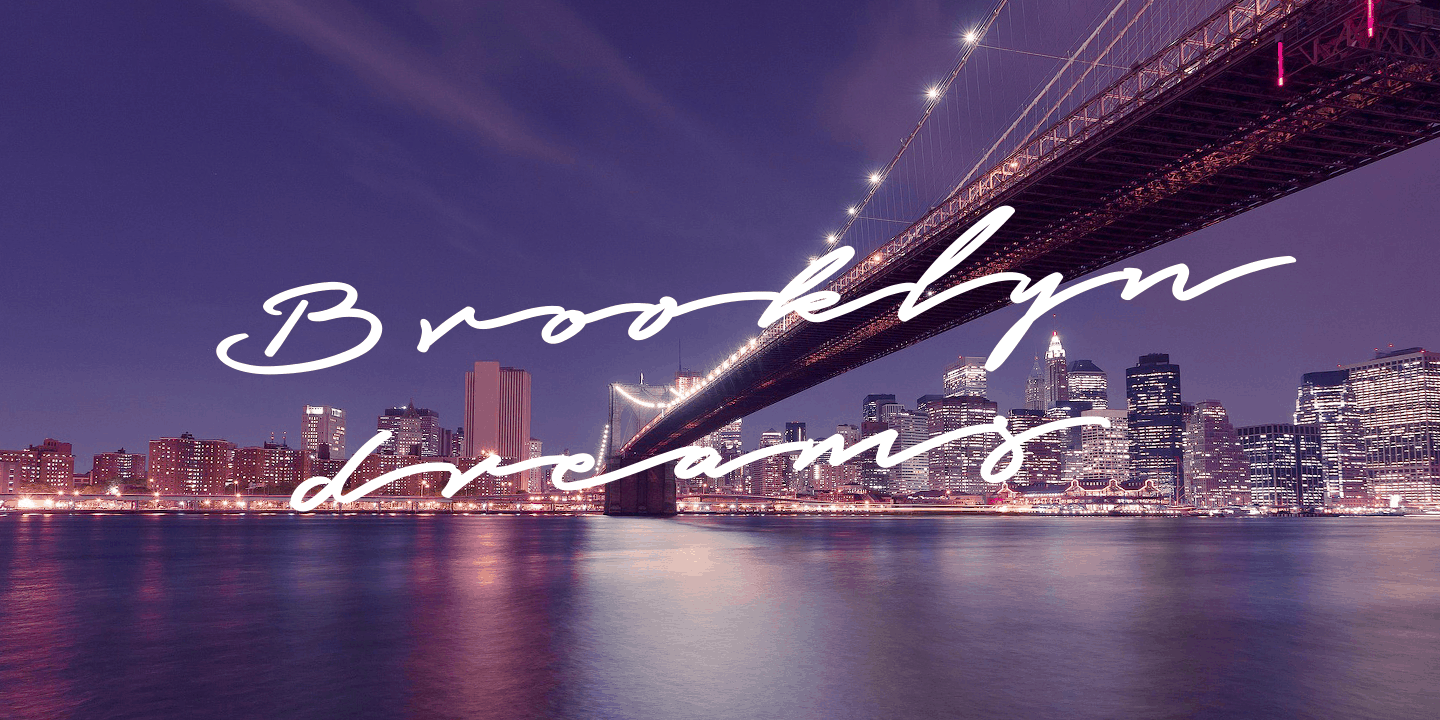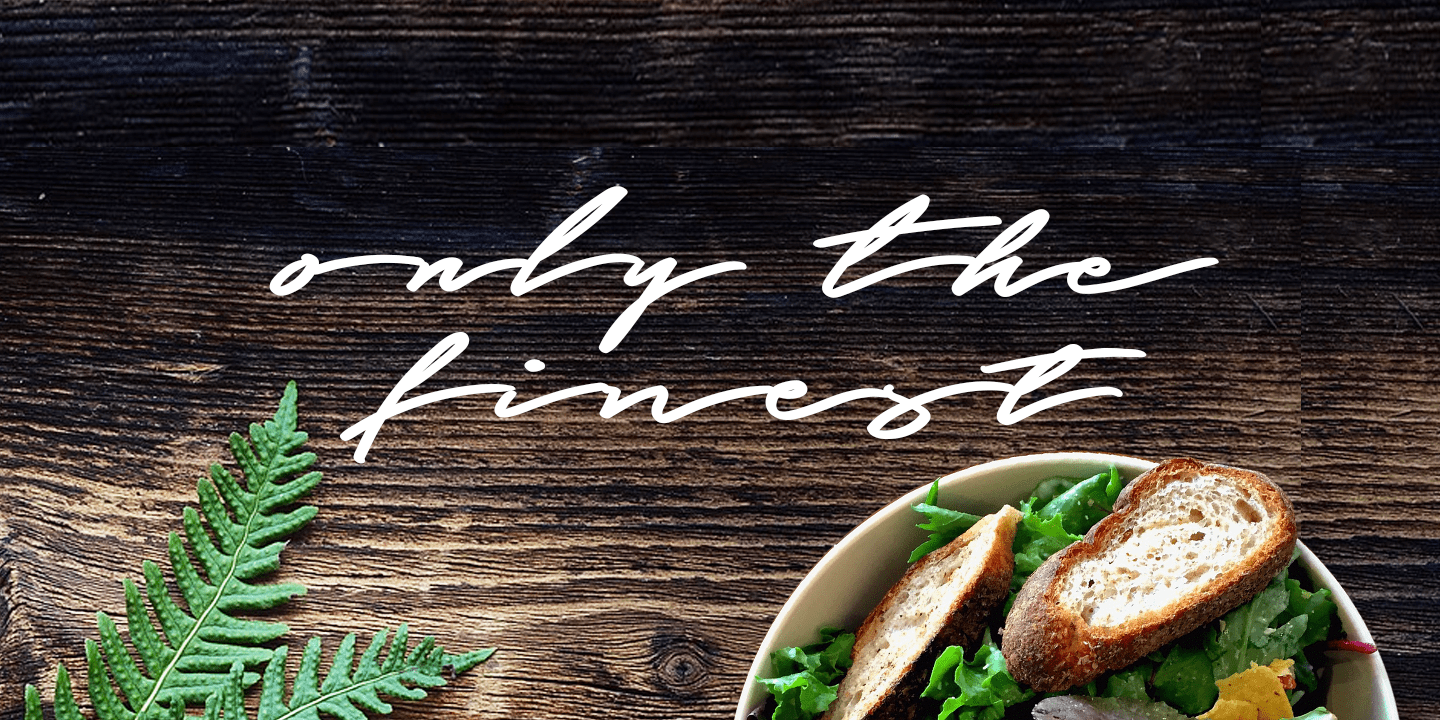
Graced Script
Graced Script is a calligraphic brush font in high quality, with a full alternate alphabet. Turn on contextual alternates to get natural letter variations.